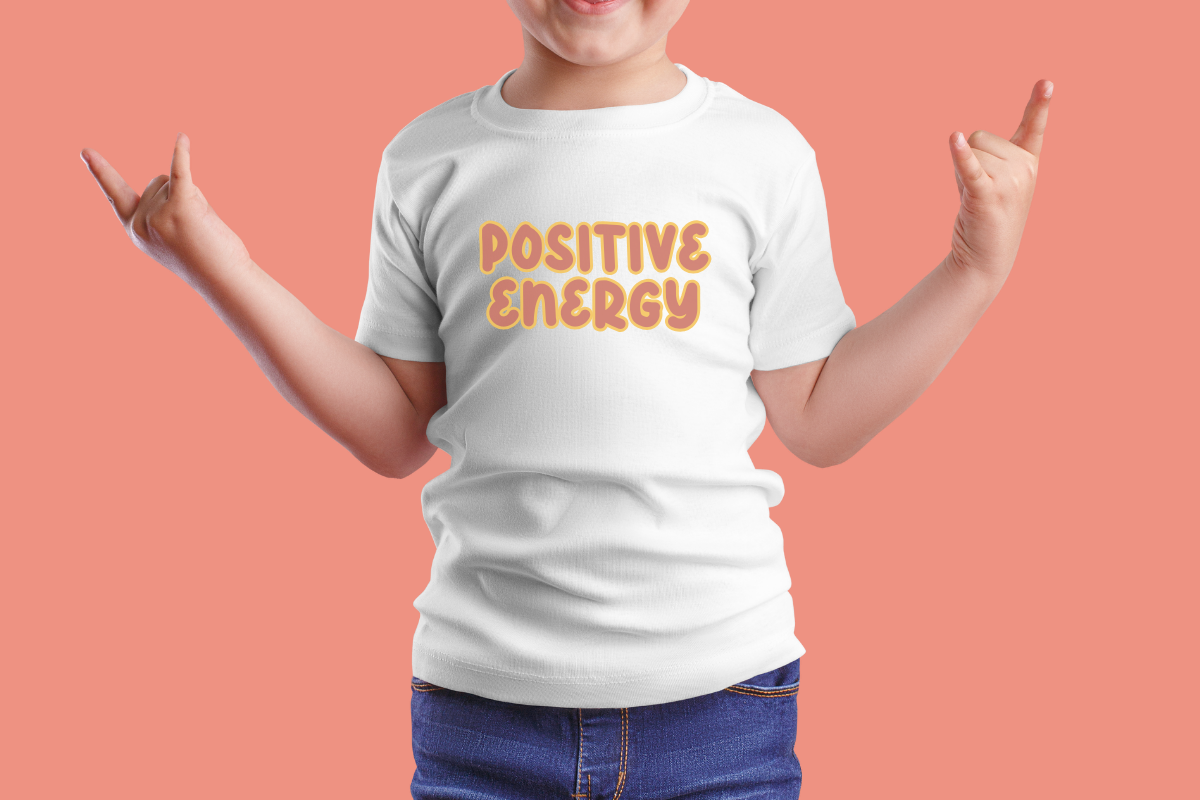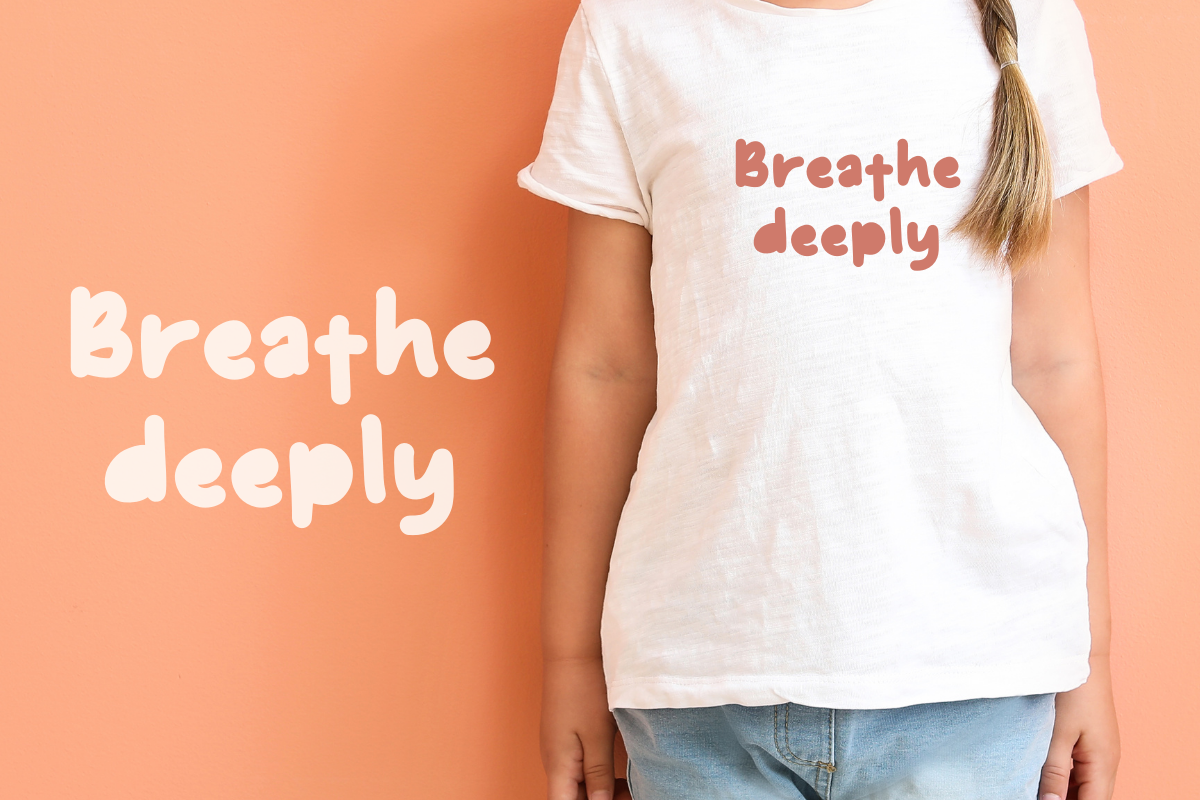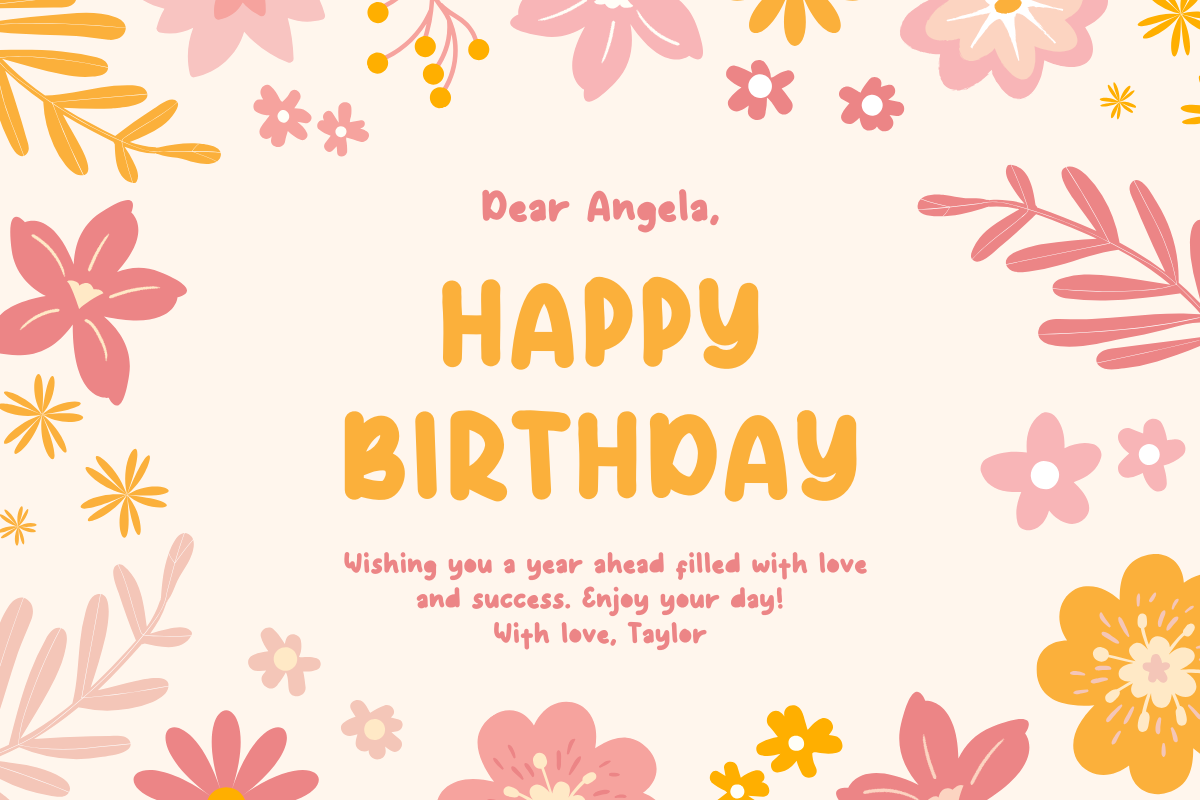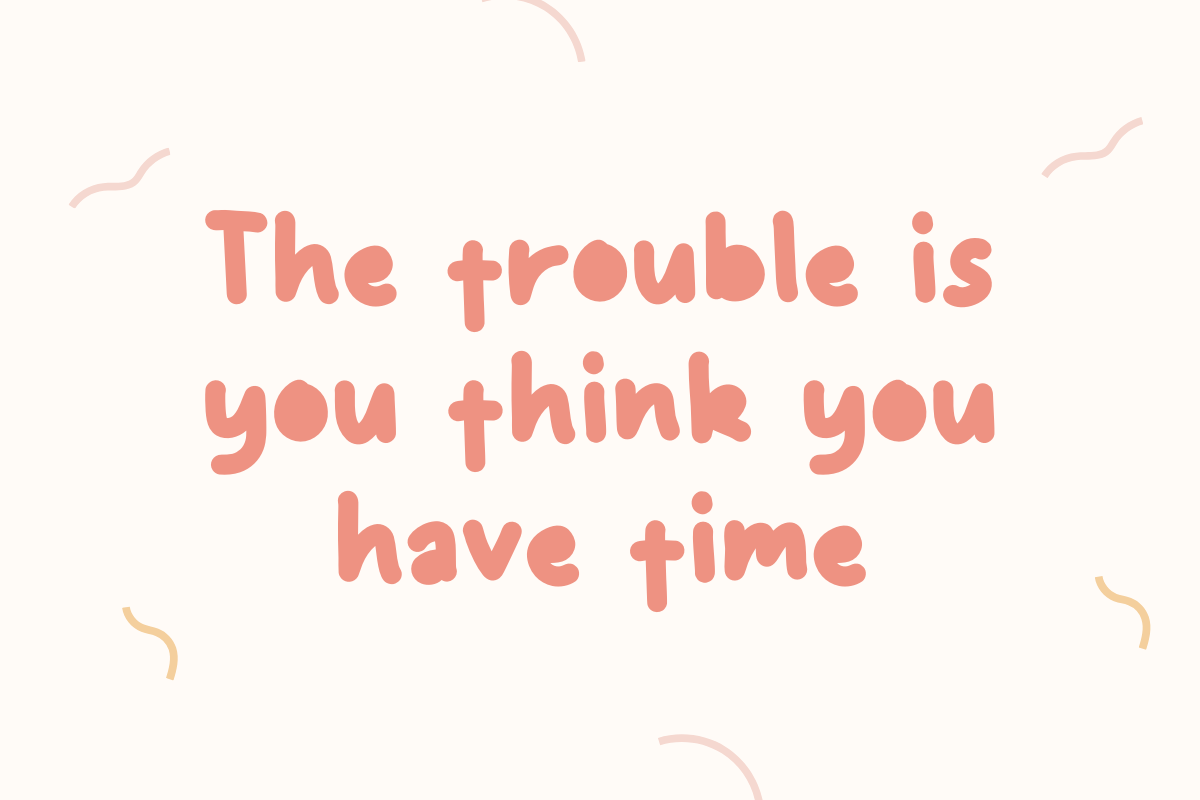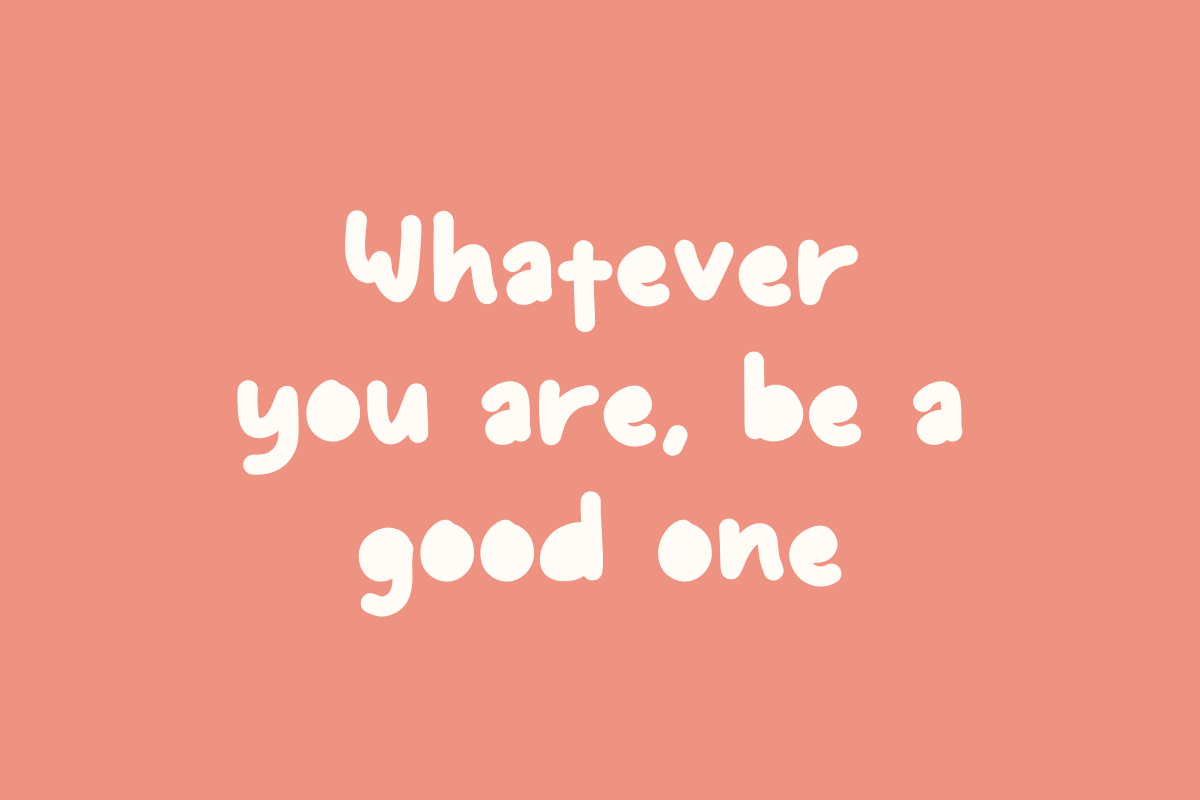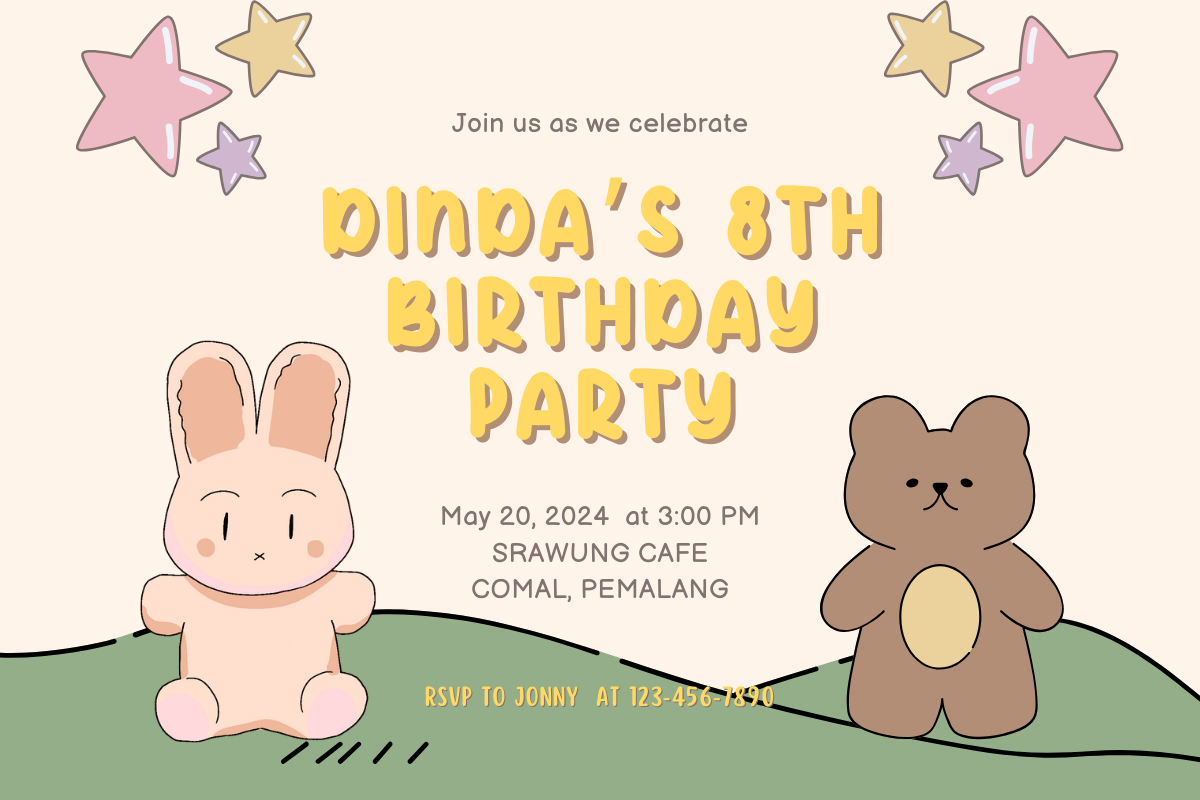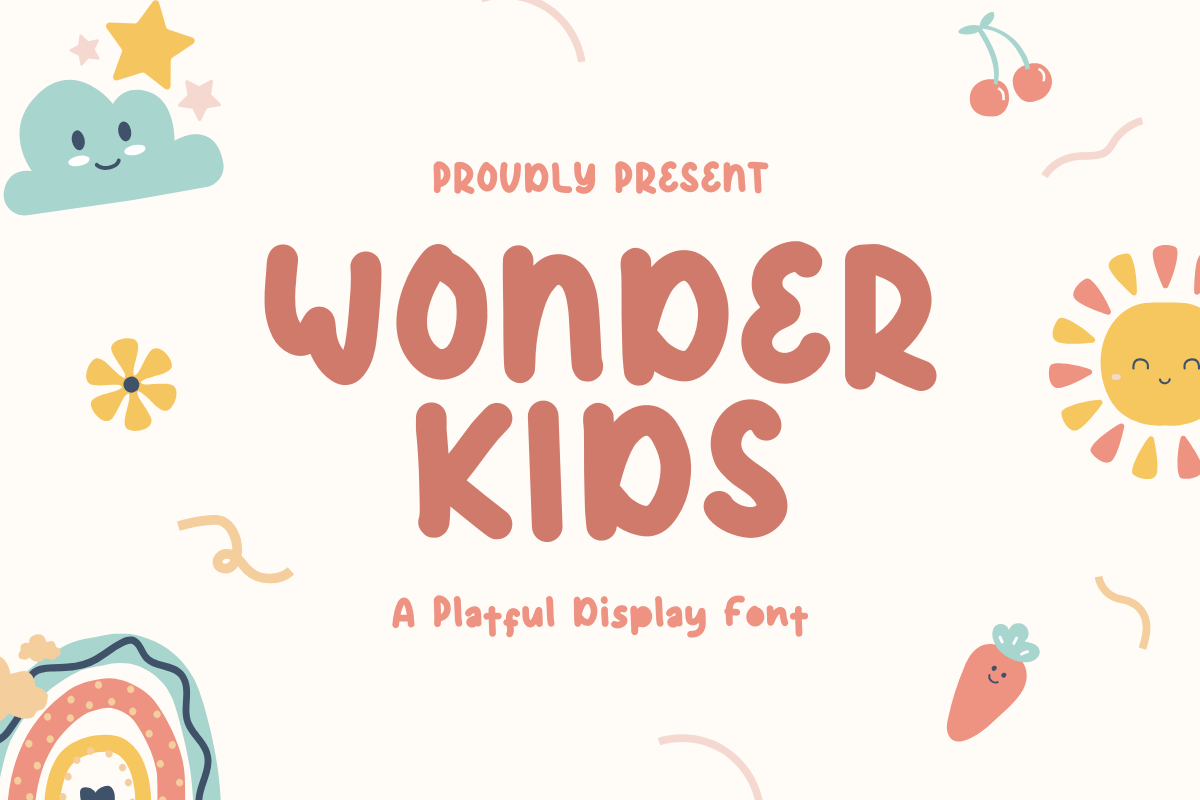
Wonder Kids - Playful Font
Wonder Kids is a fancy and playful display font. This font is suitable for various purposes such as t-shirts, posters, logos, apparel, tumblers, quotes, flyers, children's products, Cricut and many other ideas